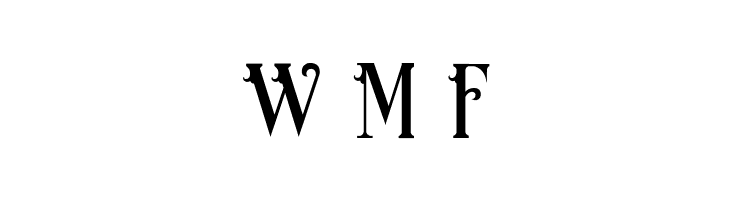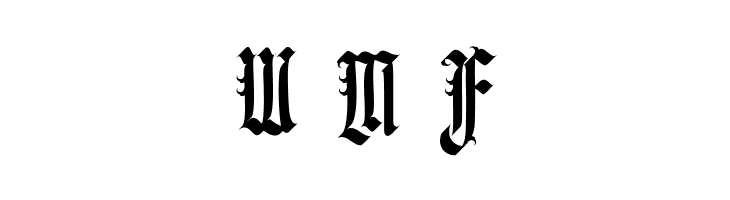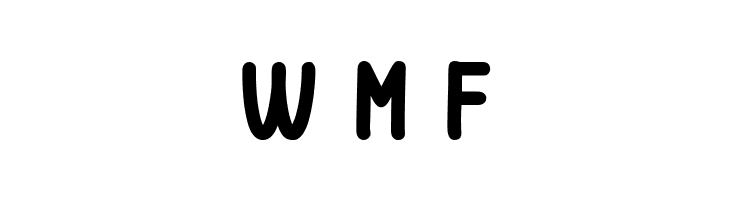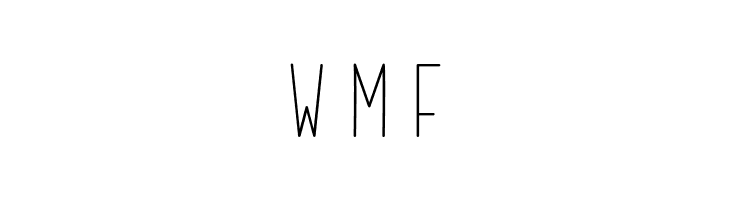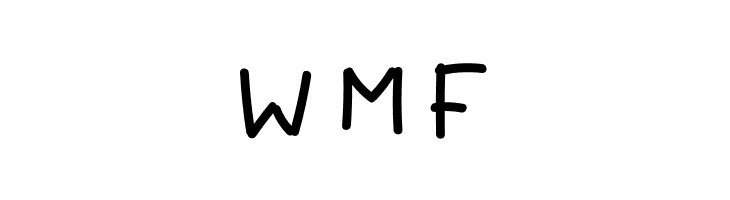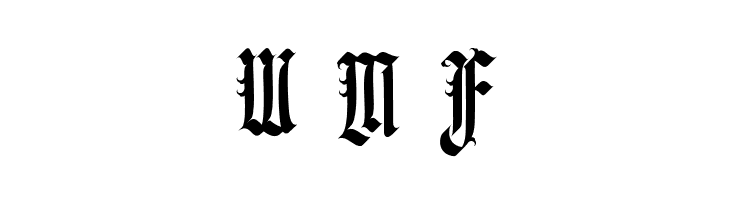
A playful, handwritten-style font with tall, narrow letterforms.
A playful, hand-drawn font with bold, rounded characters and whimsical curves.
A bold, playful font with rounded strokes and a hand-drawn feel.
A playful, bold handwritten font with smooth, rounded edges and a casual style.
A playful, handwritten font with smooth, rounded edges and a casual style.
An elegant, flowing script font with ornate uppercase and smooth lowercase letters.
A playful, bold handwritten font with rounded edges and a casual style.
A playful, bold font with rounded, bubbly characters ideal for fun designs.
A geometric, minimalist font with thin lines and sharp angles.
A playful, dynamic script font with a handwritten feel and smooth curves.
A bold, flowing script font with elegant, interconnected characters.
A playful, bold font with a hand-drawn, whimsical style.
A playful, casual handwritten font with smooth, flowing lines.
A playful, bold handwritten font with thick, rounded strokes.
A playful, informal handwritten font with irregular strokes and a lively feel.
A bold blackletter font with sharp, angular lines and intricate detailing.
A bold blackletter font with sharp, angular lines and a gothic aesthetic.
A bold, angular Blackletter-style font with sharp edges and pointed serifs.
A playful, handwritten font with smooth, rounded edges and a casual style.
A playful, bold handwritten font with dynamic strokes and a casual vibe.
A whimsical, handwritten font with dynamic, uneven strokes.
A modern, handwritten font with elegant, thin strokes and a dynamic slant.
A playful, rounded font with a hand-drawn, whimsical style.
A bold, playful font with rounded, hand-drawn characters.
A playful, bold font with rounded edges and a hand-drawn feel.
A bold, playful font with dynamic, uneven strokes and a whimsical style.
An ornate and decorative serif font with intricate details and flourishes.
An ornate and decorative font with intricate serifs and flourishes.
A playful, hand-drawn script font with smooth, fluid strokes and moderate contrast.
A bold, ornate blackletter font with intricate details and a medieval aesthetic.
A bold, gothic blackletter font with intricate, angular designs.
A playful, tall, and narrow font with consistent stroke width.